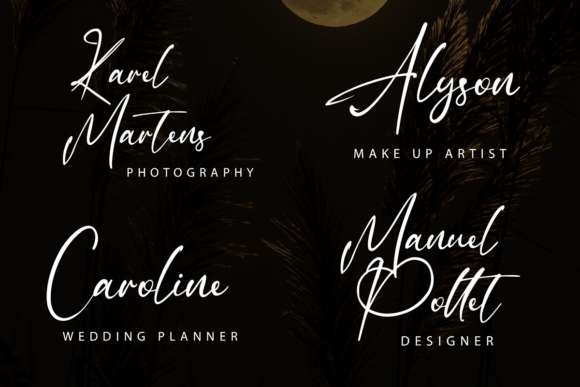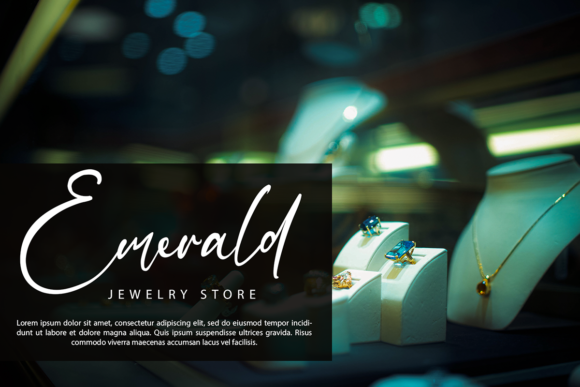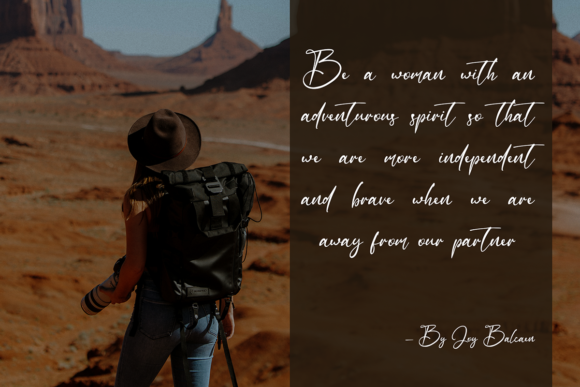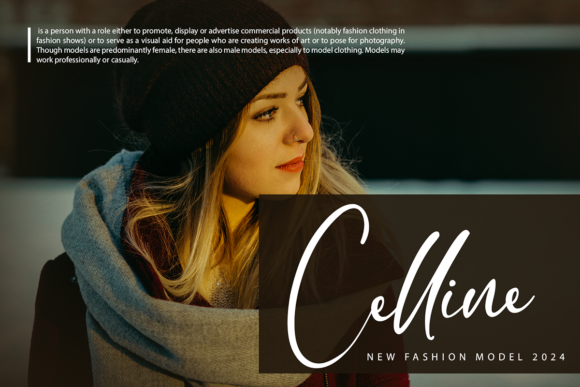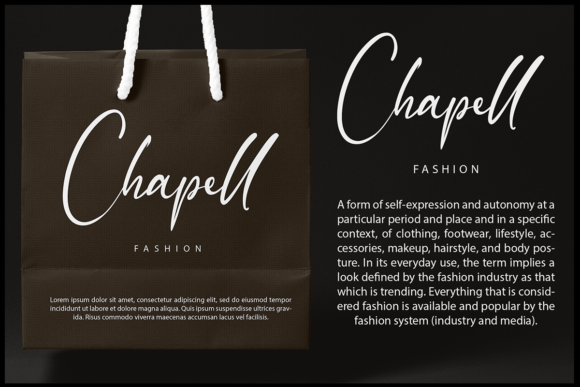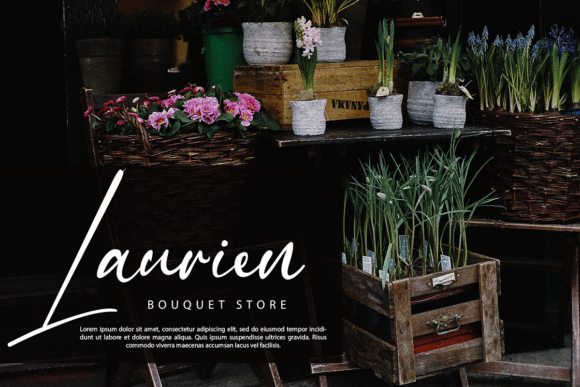
Introduction to Mellow Moon Font
Mellow Moon is a modern script font.
A collection of letters and numbers suitable for your projects is also great for logotypes, branding designs, logos, digital lettering arts, t-shirt/apparel, posters, magazines, signs, advertising designs, and so much more .
Key Features of Mellow Moon Font
Why Choose Mellow Moon Font?
Mellow Moon Font offers exceptional quality and versatility, making it a valuable addition to your design toolkit. Whether you’re creating for personal projects or commercial use, Mellow Moon Font delivers professional results.